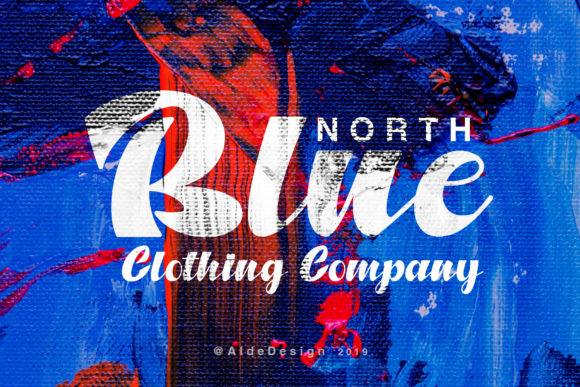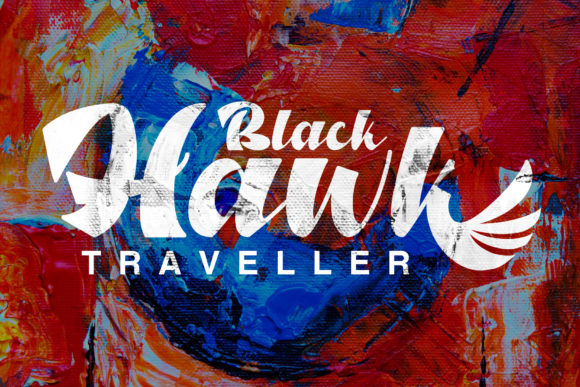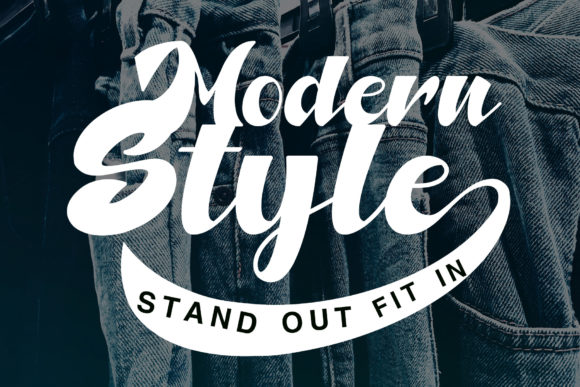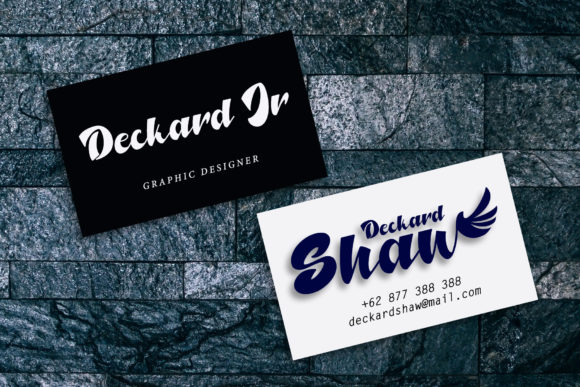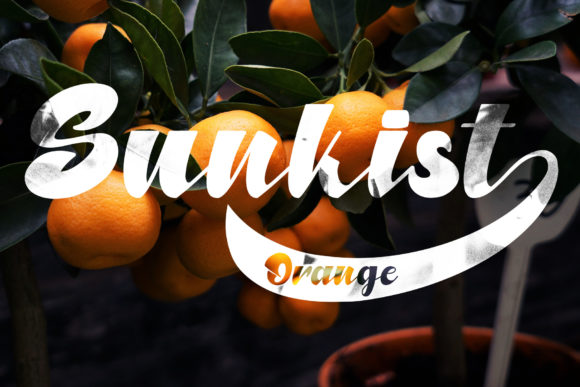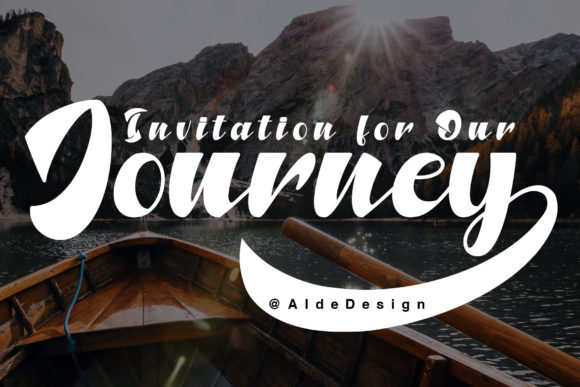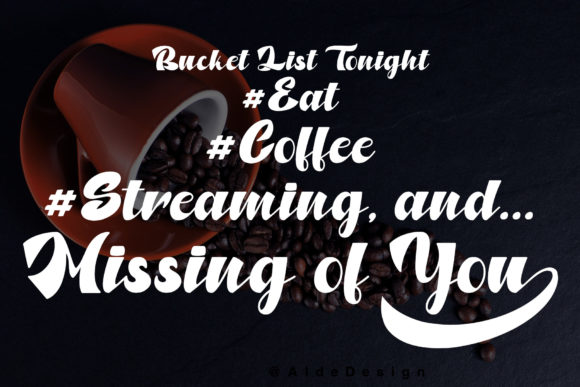
North Blue Font
About North Blue Font
North Blue s a bold and fun handwritten font with an adventurous feel. It will turn any design project into a stand out!